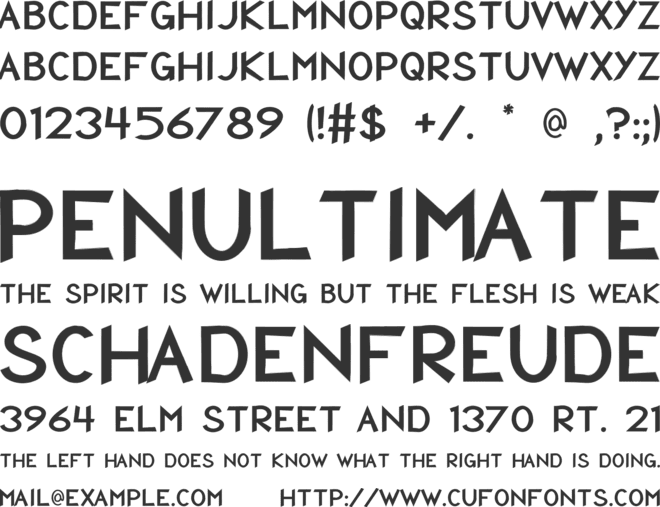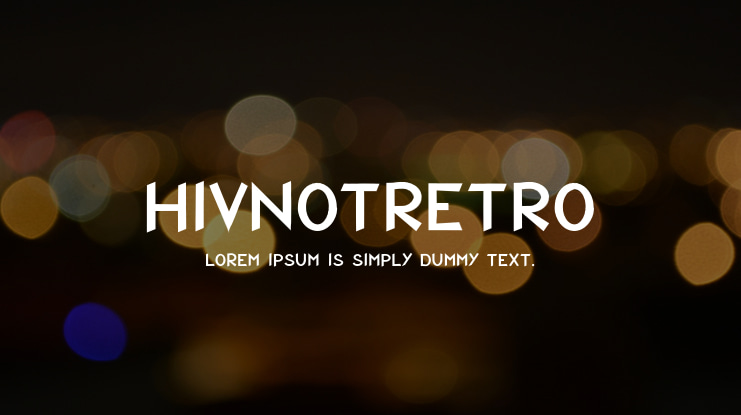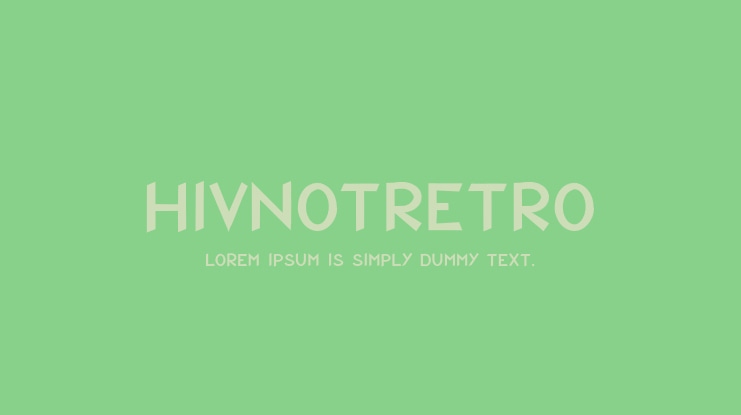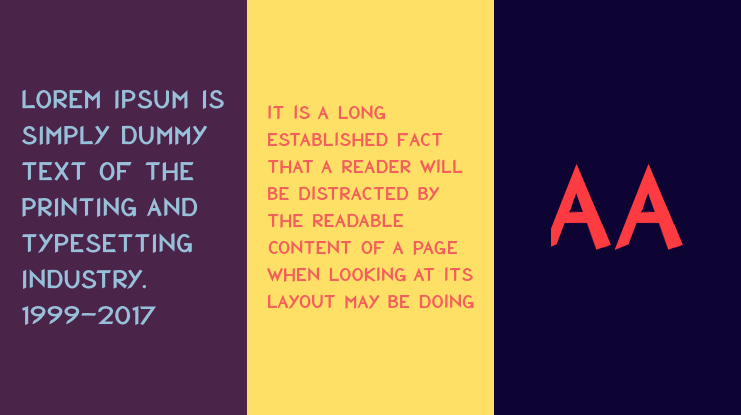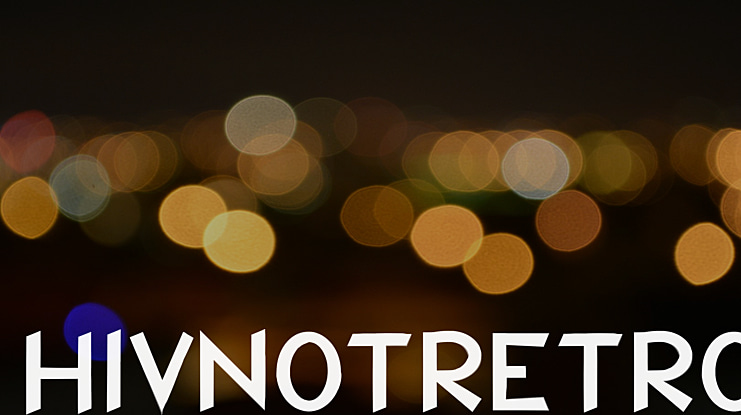
HIVNotRetro Font
Feorag
St. John's Church, at the west end of Princes Street in Edinburgh is famous, nay infamous, for its murals painted on a large board outside the building (https://www.facebook.com/Murals-at-St-Johns-Edinburgh-192612720787609/). Often controversial, and addressing contemporary issues, they've appeared regularly since 1982. In 2016, I was involved in the creation of their World AIDS Day mural, based on that year's theme "HIV Not Retro (https://www.worldaidsday.org/campaign/hiv-not-retro)". Part of what I did was to paint the lettering for the hashtags at the bottom, which had been roughed out in chalk by Greg, the artist.This font was done quickly, based on that lettering, and tries to capture some of what it was like working in paint, with old brushes, in freezing temperatures, on a Sunday morning (not a time with which I am familiar).The character set is therefore much smaller than usual, and the only special character is the awareness ribbon. This is mapped to the "bullet" glyph. There's still a good range of accents.